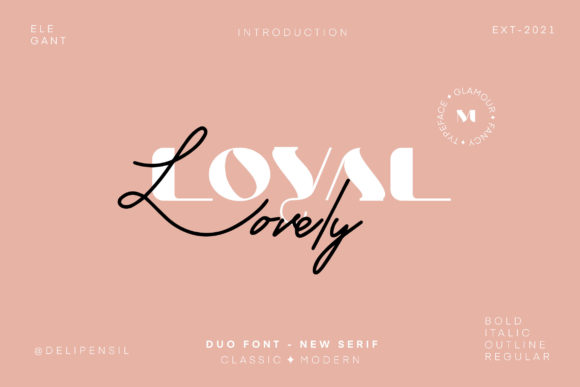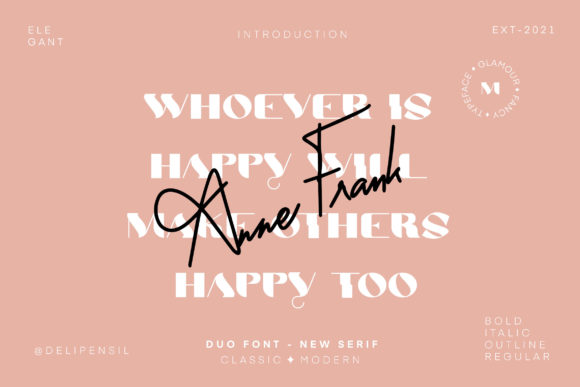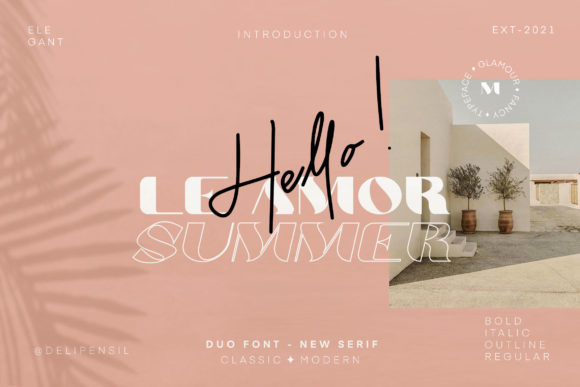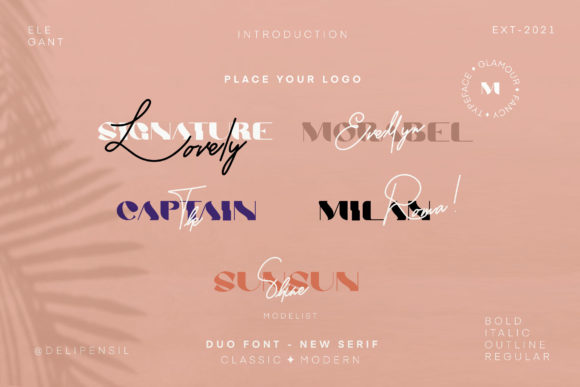
About Molina Font
Molina is a cool yet elegant and incredibly unique duo font (serif and script). Expertly designed to make your creation look out of this world, this font will look gorgeous on a variety of ideas.